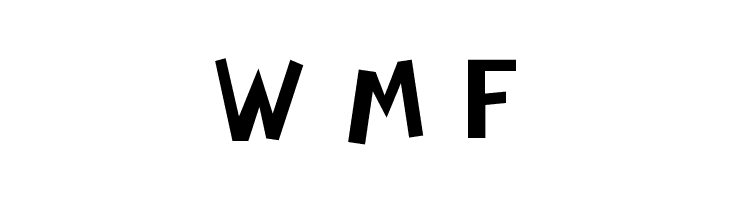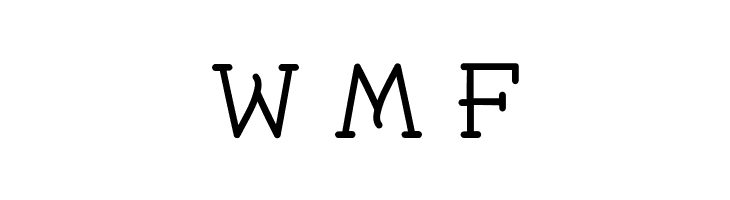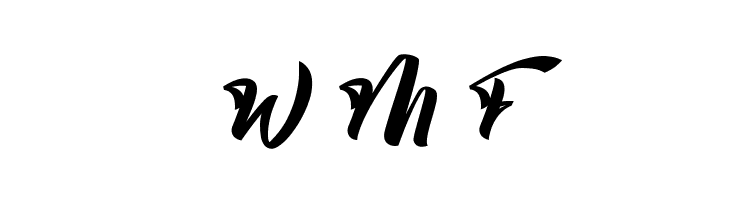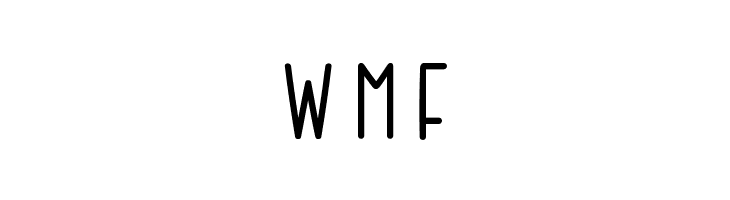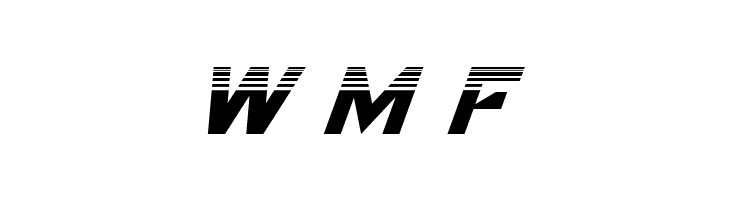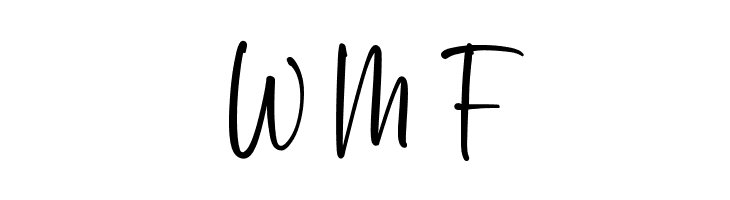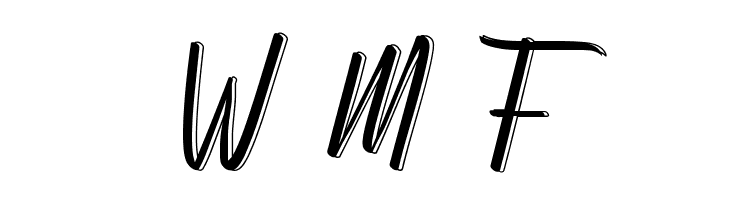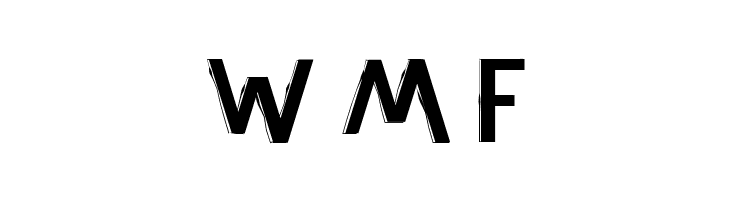
A playful, bold font with a hand-drawn, comic book style.
A bold, decorative font with a vintage circus poster style.
A playful, bold font with rounded characters and a whimsical, hand-drawn style.
A modern vintage font with rounded serifs and clean lines, offering a sophisticated yet approachable style.
A bold, expressive script font with high contrast and dynamic flow.
A playful, hand-drawn font with rounded edges and a casual style.
A bold, dynamic font with racing stripe accents and a futuristic style.
A playful and modern handwritten font with fluid, dynamic strokes.
A bold, dynamic script font with high contrast and flowing letterforms.
A bold, hand-drawn style font with a dynamic and energetic appearance.